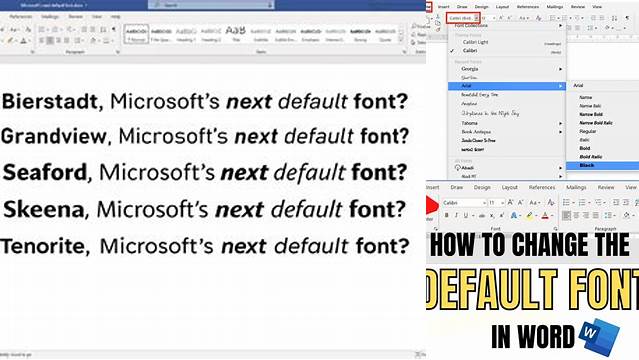
Microsoft Word: Changing Default Fonts Explained
Let's dive into the world of Microsoft Word and how you can tweak those default fonts! Ever opened a new document and thought, "Ugh, Calibri again?" Well, you're not alone! Many users want to personalize their Word experience right from the get-go. This guide will walk you through everything you need to know about changing the default fonts in Microsoft Word, making your document creation process smoother and more aligned with your personal preferences. We'll cover why you might want to change the default font, how to do it step-by-step, and even some troubleshooting tips. So, buckle up, and let’s get started!
Why Change the Default Font in Microsoft Word?
Changing the default font in Microsoft Word can save you a ton of time and effort. Imagine you're working on a project that requires a specific font, like Times New Roman for academic papers or Arial for business reports. Instead of manually changing the font every time you open a new document, setting your preferred font as the default ensures that every new document starts with your desired font. This not only speeds up your workflow but also ensures consistency across all your documents. Plus, it's a great way to personalize your Word experience and make it more enjoyable to use. Who wants to start every document with a font they don't like?
Another significant reason to change the default font is readability. Some fonts are simply easier on the eyes than others, especially for extended periods of reading and writing. Choosing a default font that you find comfortable can reduce eye strain and improve your overall productivity. Furthermore, different fonts convey different tones and styles. A playful font might be perfect for a casual project, but it's hardly appropriate for a professional document. By setting a default font that aligns with the type of documents you typically create, you can ensure that your work always presents the right image.
Step-by-Step Guide: Changing the Default Font
Alright, guys, let's get into the nitty-gritty of changing that pesky default font! Here’s a step-by-step guide to help you through the process:
- Open Microsoft Word: Fire up your Word application. If you're already in a document, you can just stay there; it won't affect the process.
- Create a New Document (Optional): If you don’t have a document open, create a new one. This ensures that the changes you make will apply to new documents.
- Access the Font Dialog Box: There are a couple of ways to do this. The easiest is to press
Ctrl + D(orCmd + Don a Mac). Alternatively, you can go to the "Home" tab on the ribbon and click the small arrow in the bottom-right corner of the "Font" section. This will open the Font dialog box. - Choose Your Desired Font: In the Font dialog box, you'll see a bunch of options. Select your preferred font from the "Font" dropdown menu. You can also choose the font style (Regular, Italic, Bold, etc.) and the size. Take your time and experiment to find the perfect combination.
- Set as Default: This is the crucial step. At the bottom-left of the Font dialog box, you'll see a button labeled "Set As Default". Click it.
- Choose How to Apply the Change: A small window will pop up, asking if you want to apply the font changes to "This document only?" or "All documents based on the Normal template?". Select "All documents based on the Normal template?". This ensures that your new default font will apply to all new documents you create.
- Click "OK": Hit the "OK" button, and you're done! Your new default font is now set.
- Test It Out: Close Word and reopen it. Create a new document, and you should see your chosen font ready to go!
Understanding the Normal Template
The "Normal template," often referred to as Normal.dotm, is the foundation for all new blank documents in Microsoft Word. It contains the default settings for font, margins, styles, and other formatting options. When you change the default font and select "All documents based on the Normal template?", you're essentially modifying this template. Any new document you create will inherit these settings from the Normal template, ensuring consistency across your work. It's a powerful feature that can save you a significant amount of time and effort, especially if you frequently use the same formatting options.
Think of the Normal template as the blueprint for your Word documents. By customizing this template, you're essentially customizing the starting point for all your future projects. This is why it's crucial to understand how the Normal template works and how to modify it correctly. If you accidentally mess up the Normal template, you can always revert to the default settings, but it's best to proceed with caution and follow the steps carefully. Backing up your Normal template before making changes is a good practice, just in case.
Sometimes, things don't go as planned. Here are a few common issues you might encounter and how to troubleshoot them:
- Font Not Changing: If your default font doesn't seem to be changing, make sure you selected "All documents based on the Normal template?" when setting the default. Also, double-check that you've closed and reopened Word after making the changes. Occasionally, Word needs a restart to fully apply the new settings.
- Unexpected Formatting: If you're seeing unexpected formatting issues, it might be due to conflicting styles or settings within the Normal template. Try resetting the Normal template to its default settings. You can usually find instructions on how to do this in Microsoft Word's help documentation.
- Use bold, italic, and underline sparingly and intentionally.
- Be consistent with your use of fonts and styles throughout your document.
- Embed fonts in your document to ensure that it displays correctly on other computers.
- Optimize fonts for printing.
- Consider accessibility for all readers.
By following these best practices, you can ensure that your documents are visually appealing, easy to read, and effective at communicating your message.